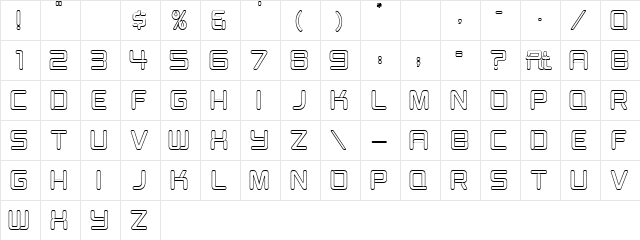
Burger Joint Neon Open JL Regular
| Foundry | Jeff's Fonts & Dingbats |
| Designer | Jeffrey N. Levine |
Design Context for Burger Joint Neon Open JL Typeface
Burger Joint Neon Open JL has a distinctly futuristic character, with geometric precision and clean angles that feel at home in technology, gaming, and sci-fi contexts.